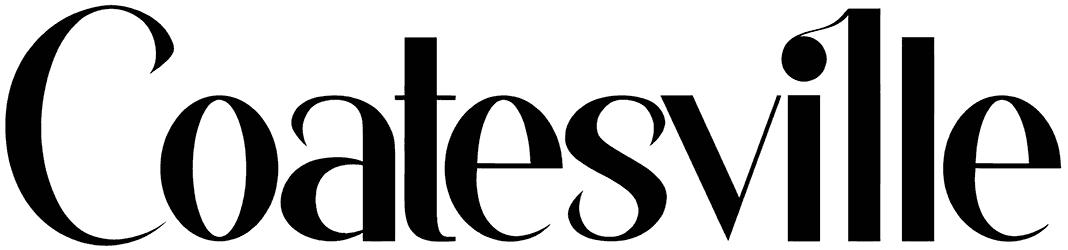
Coatesville Font
Most of the time, choosing a modest and professional visual for your designs will make them striking, and this fashion font has such a style. Numbers and punctuation marks are not available, but as a basic font, you can add them to any project, like a romance book cover. Coatesville font is an all-purpose item that could be matched with any taste.